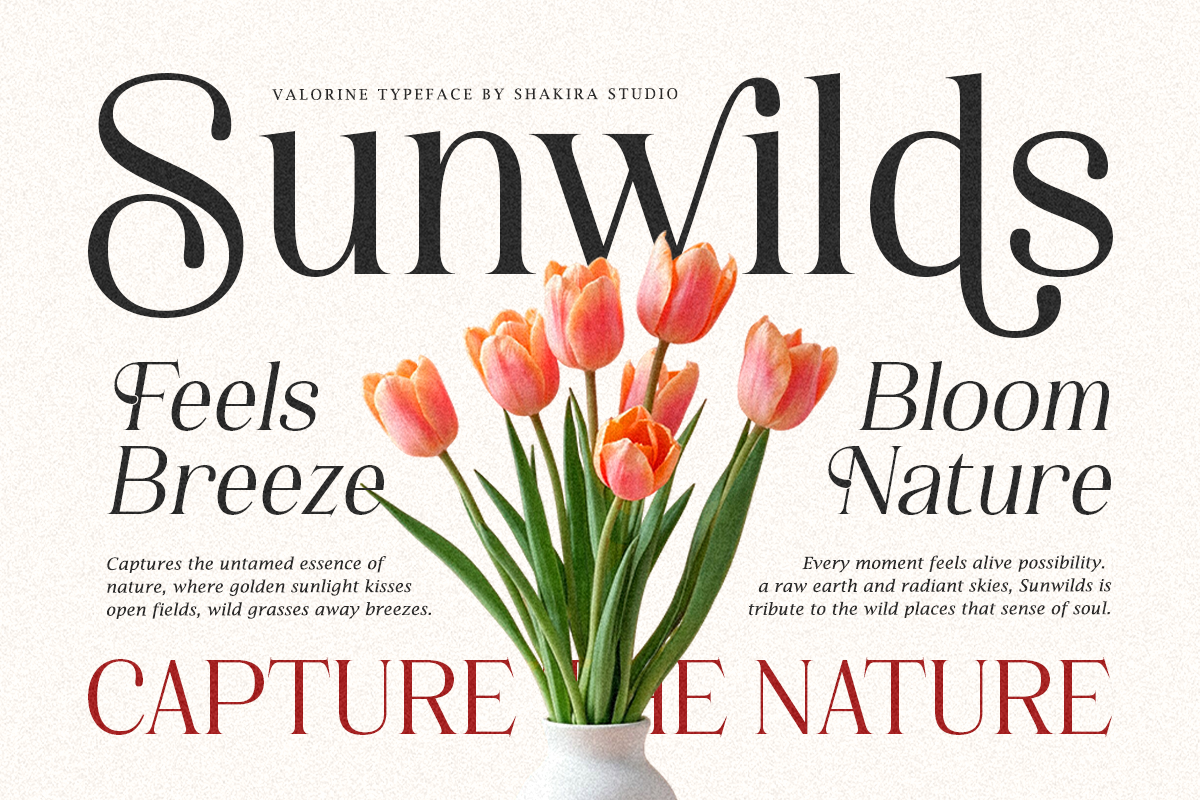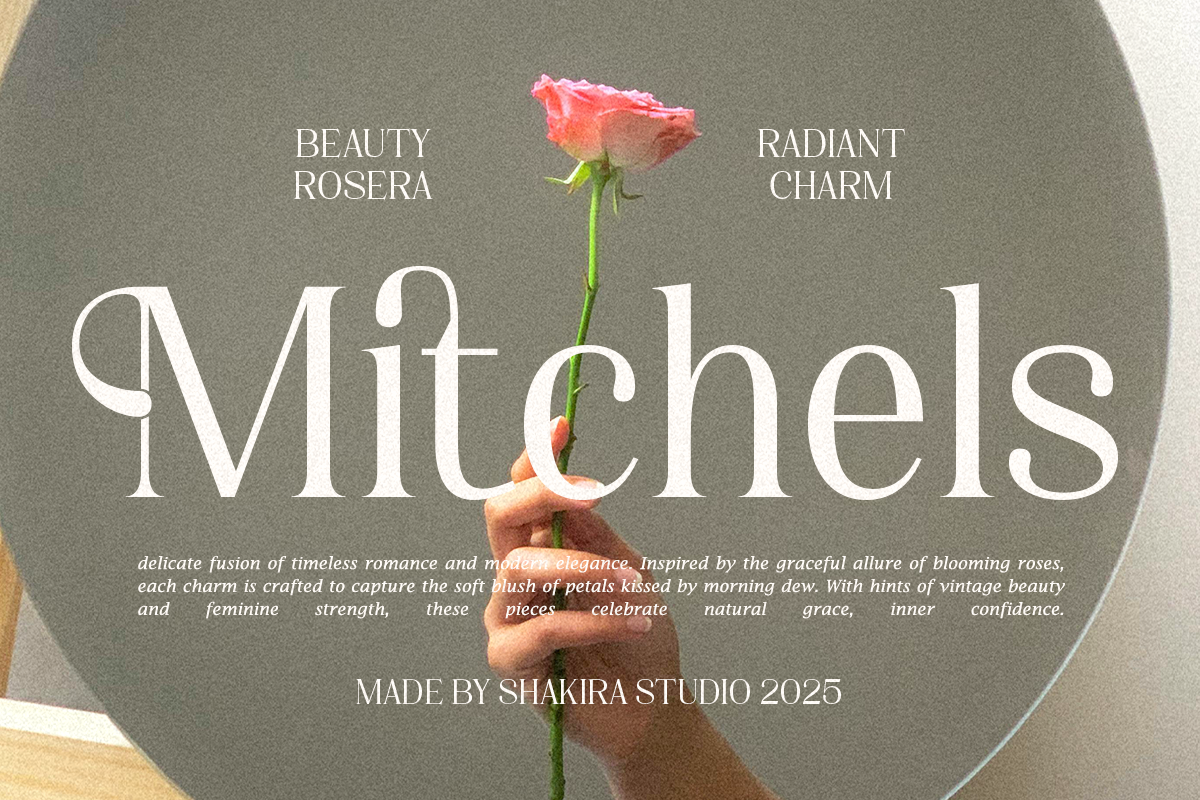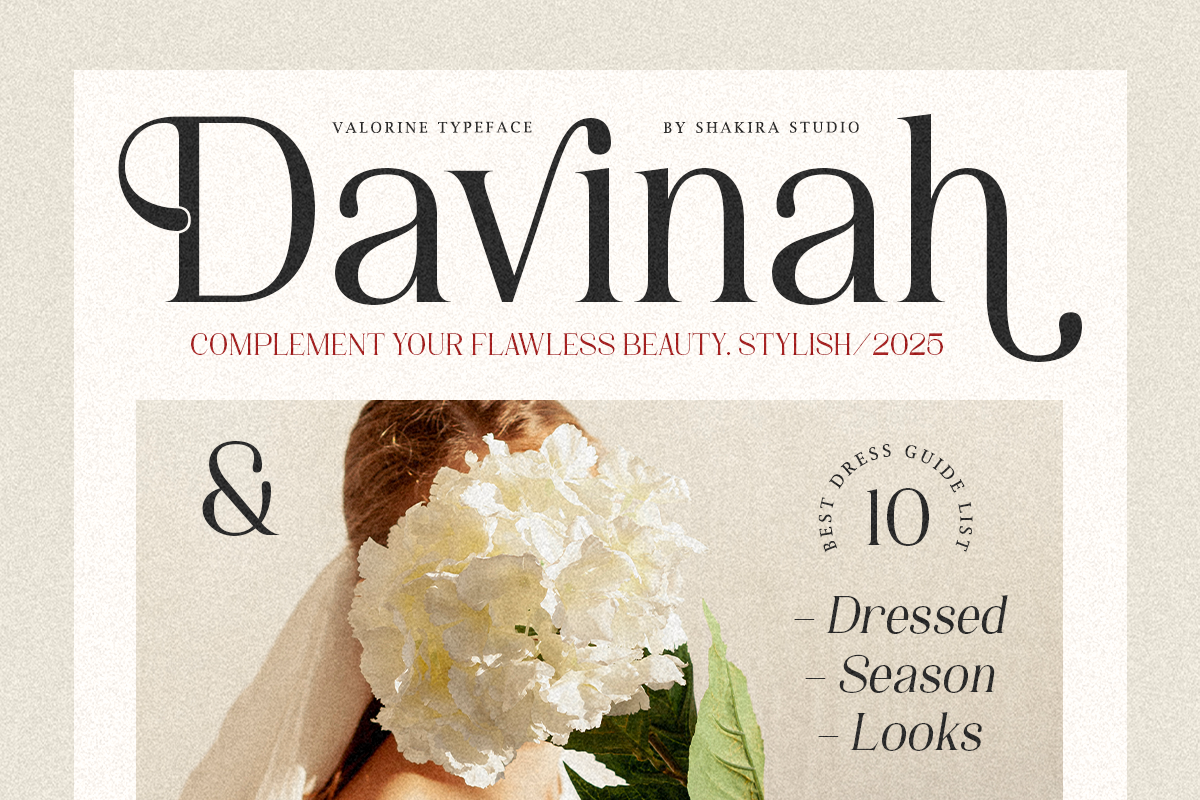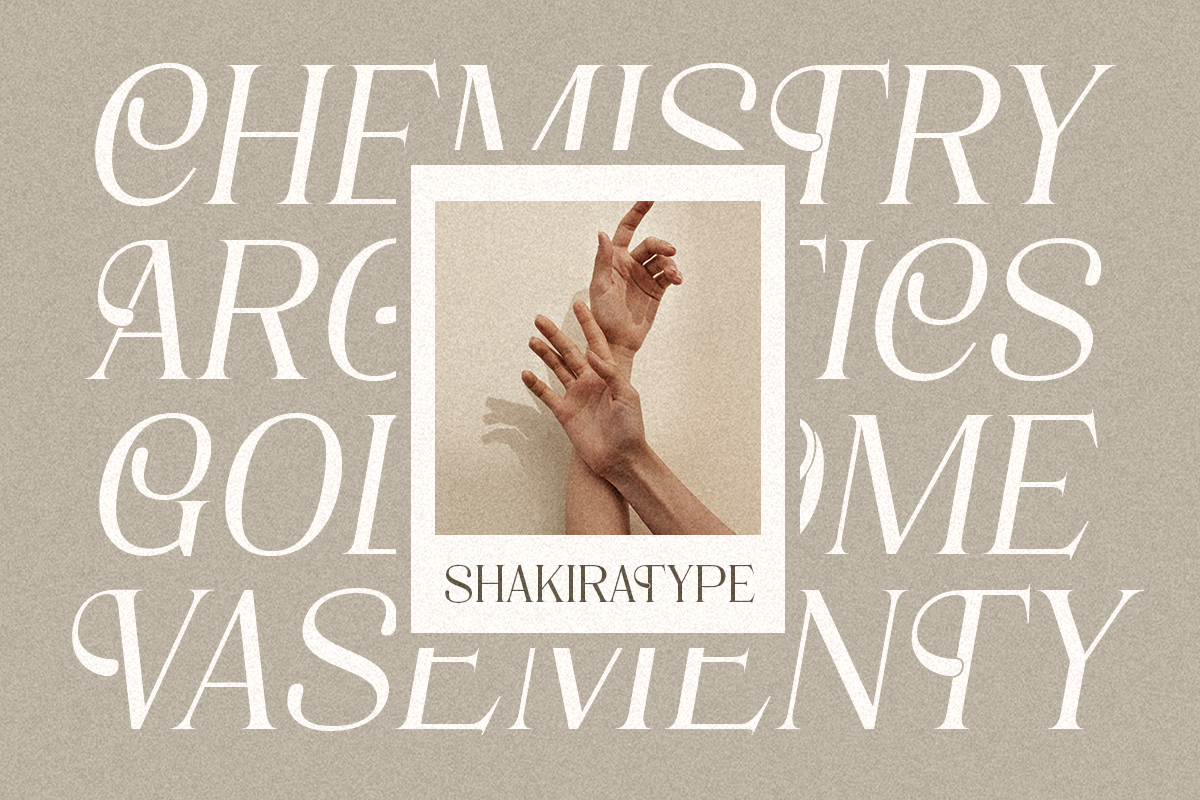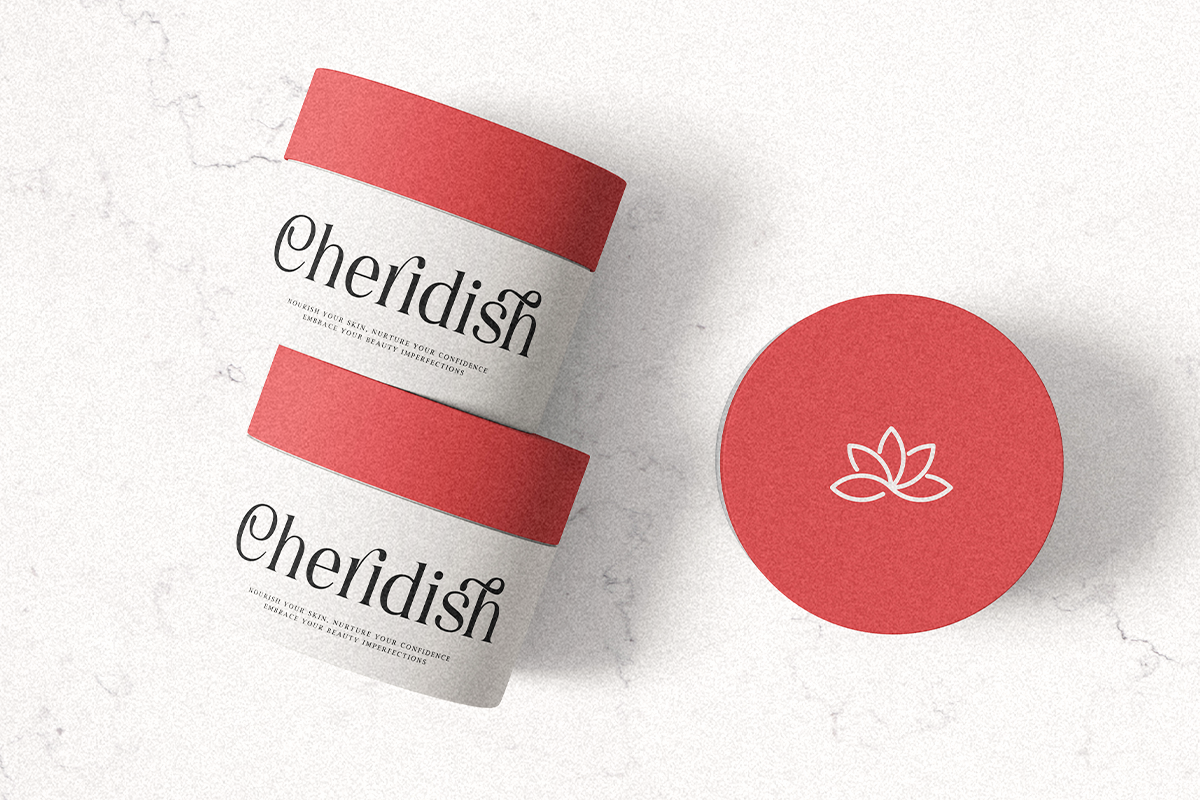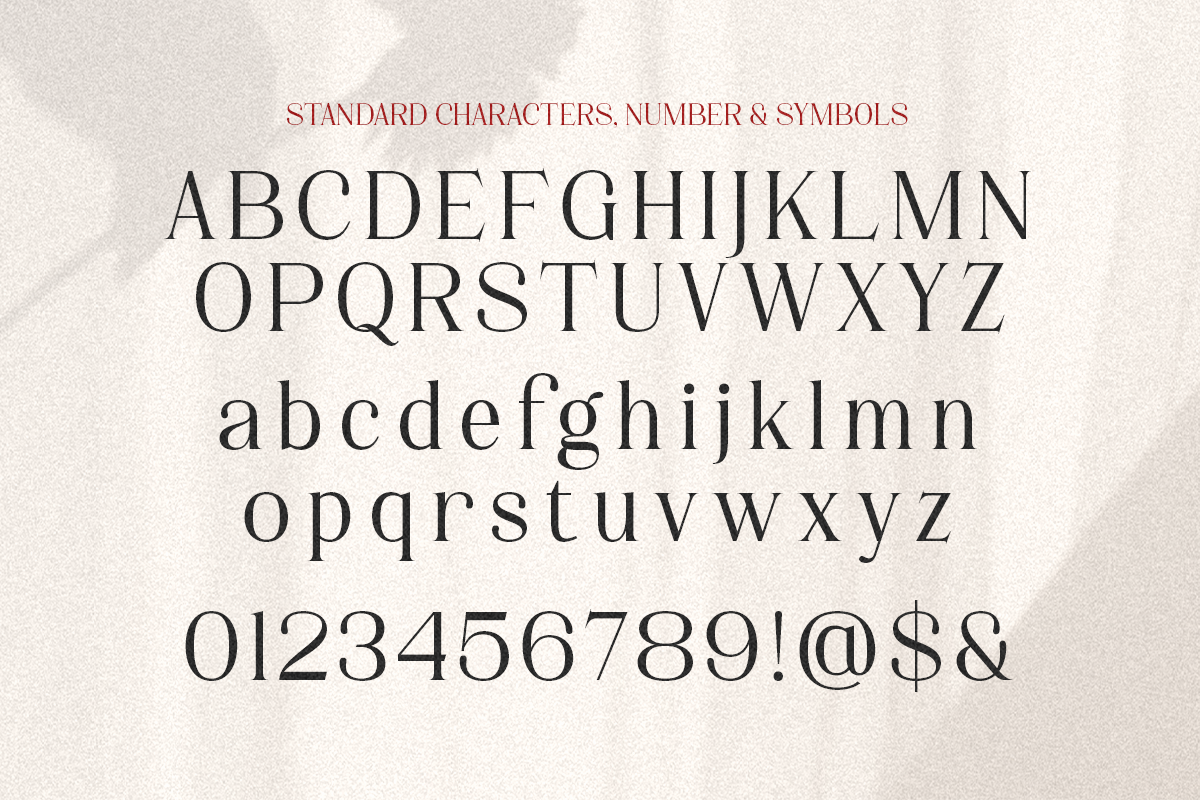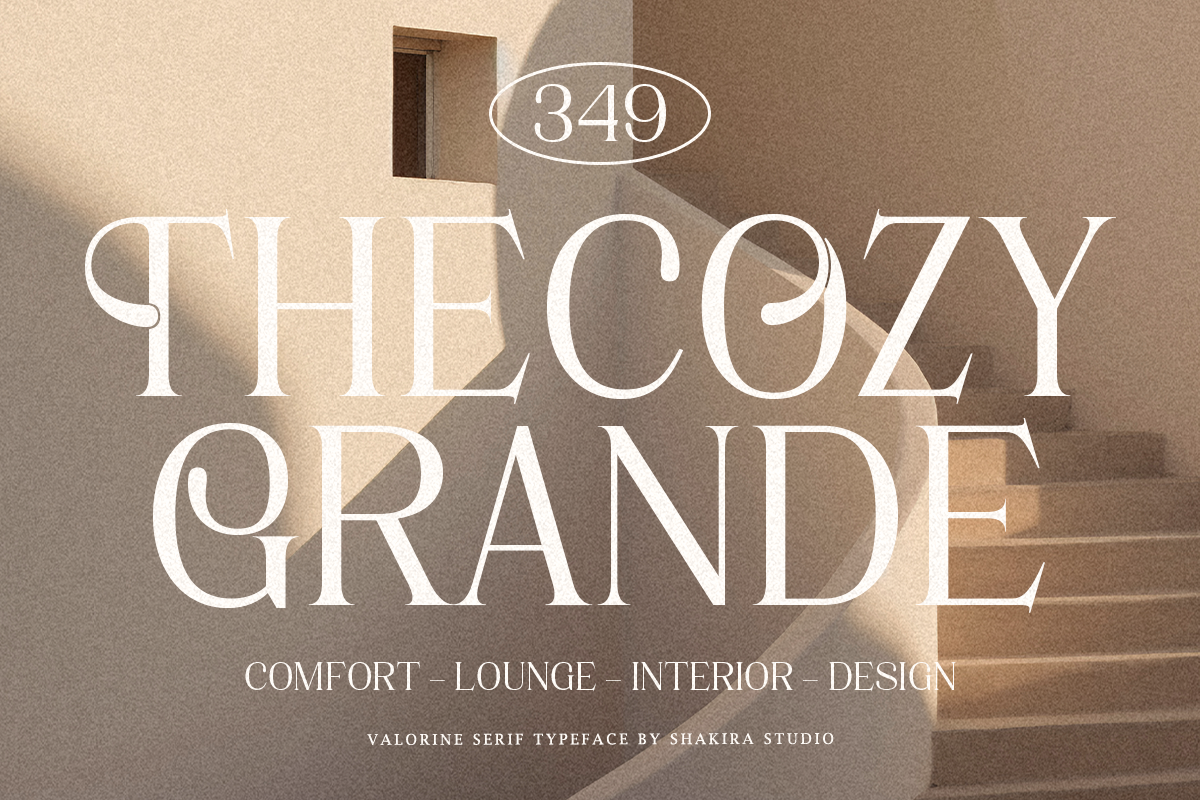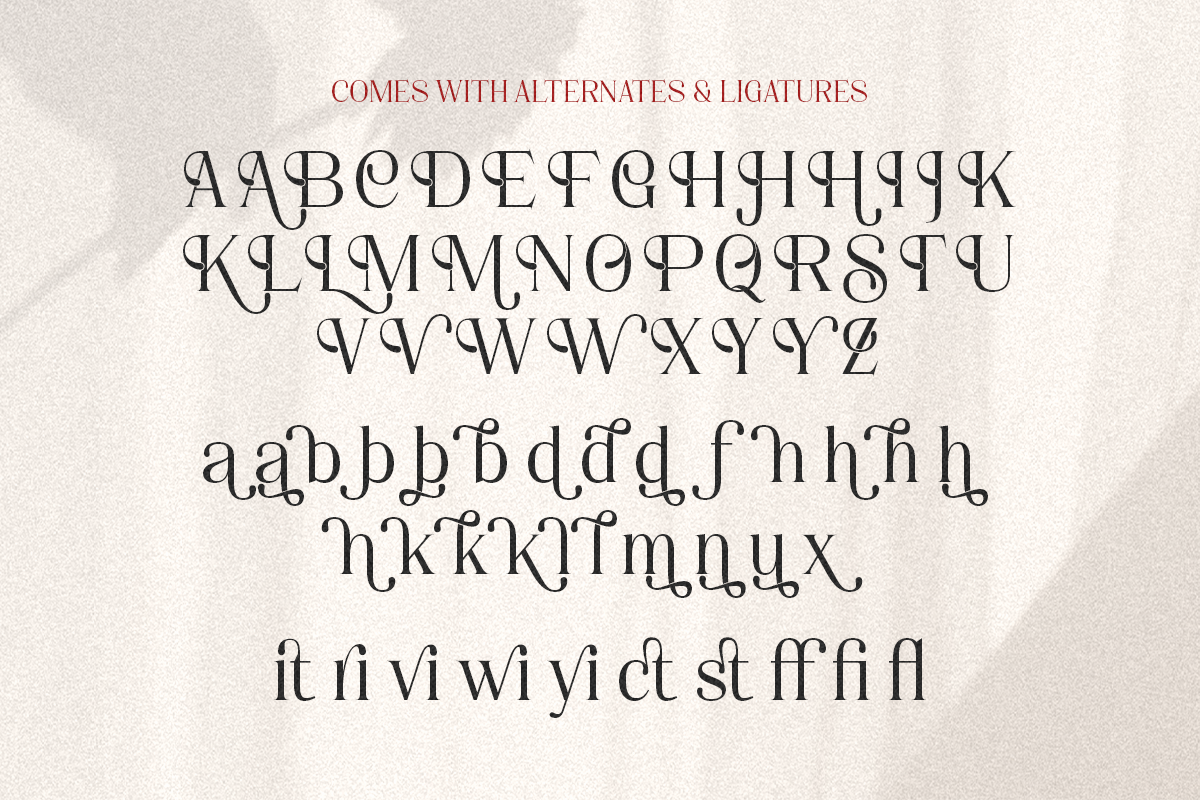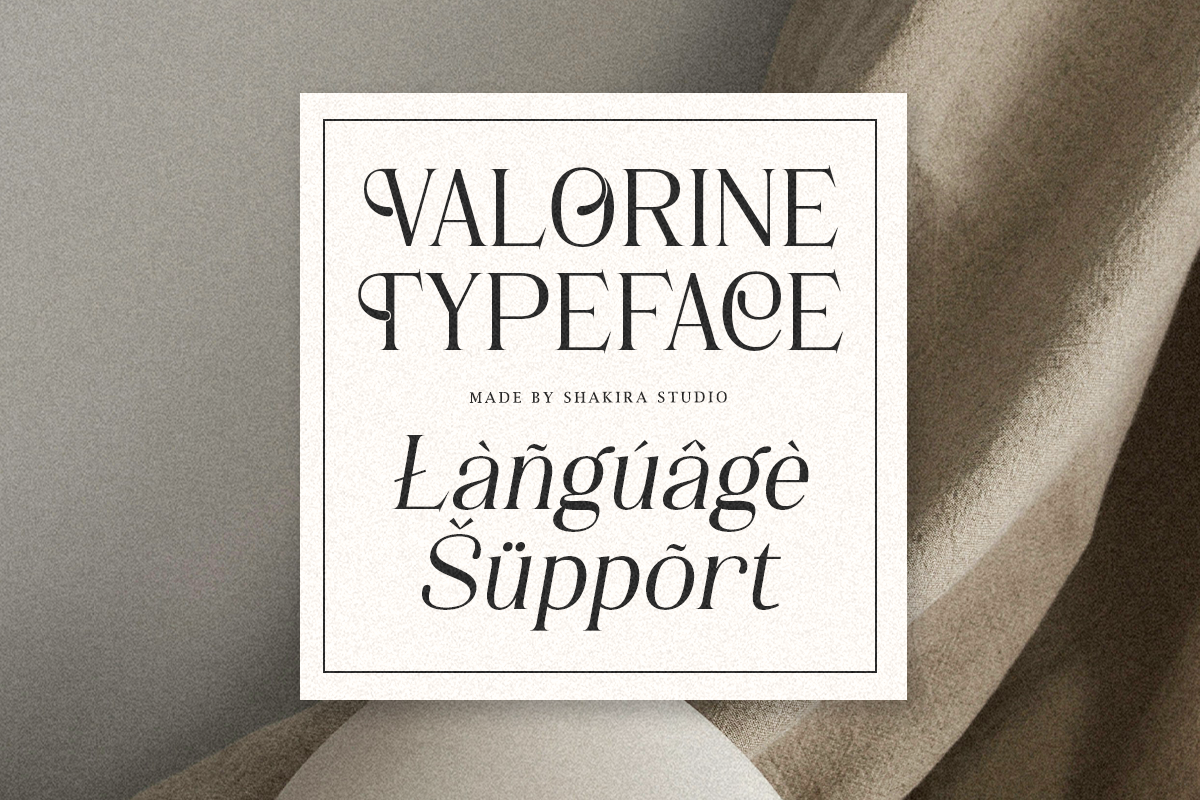
Valorine - Minimal Modern Stylish
Introducing Valorine, a minimalist serif typeface that combines elegance with function. Designed for designers who seek sophisticated simplicity, Valorine brings stylish confidence to every design — from logos and magazines to wedding invitations and product packaging. Its ligature set and geometric balance make it versatile yet refined.
- Regular & Italic
Perfect For: Branding, packaging, logo design, wedding stationery, editorial design, and product identity.